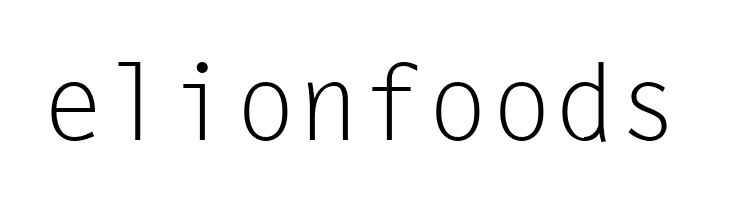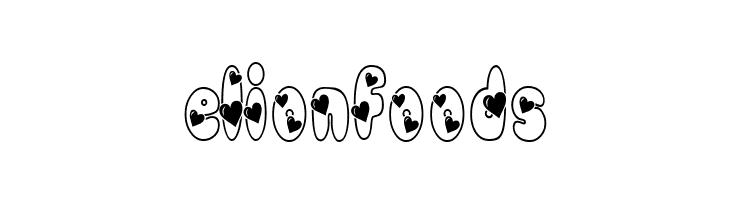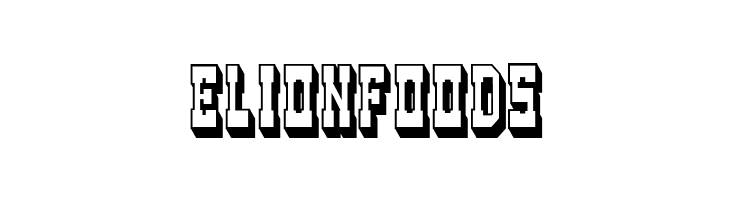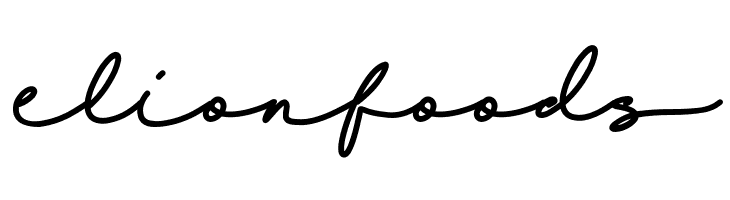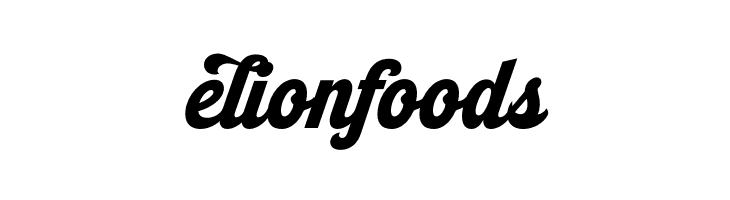
A playful, heart-adorned font with bold, rounded outlines.
A bold, three-dimensional font with a vintage, blocky style.
A bold, 3D block font with strong shadow effects for impactful display use.
A flowing, cursive script font with elegant, connected strokes.
A playful, handwritten font with rounded, informal letterforms.
A bold, flowing script font with elegant curves and ornate flourishes.
A modern, geometric sans-serif font with uniform character width and clean lines.